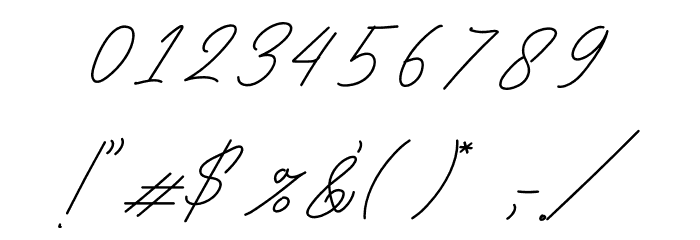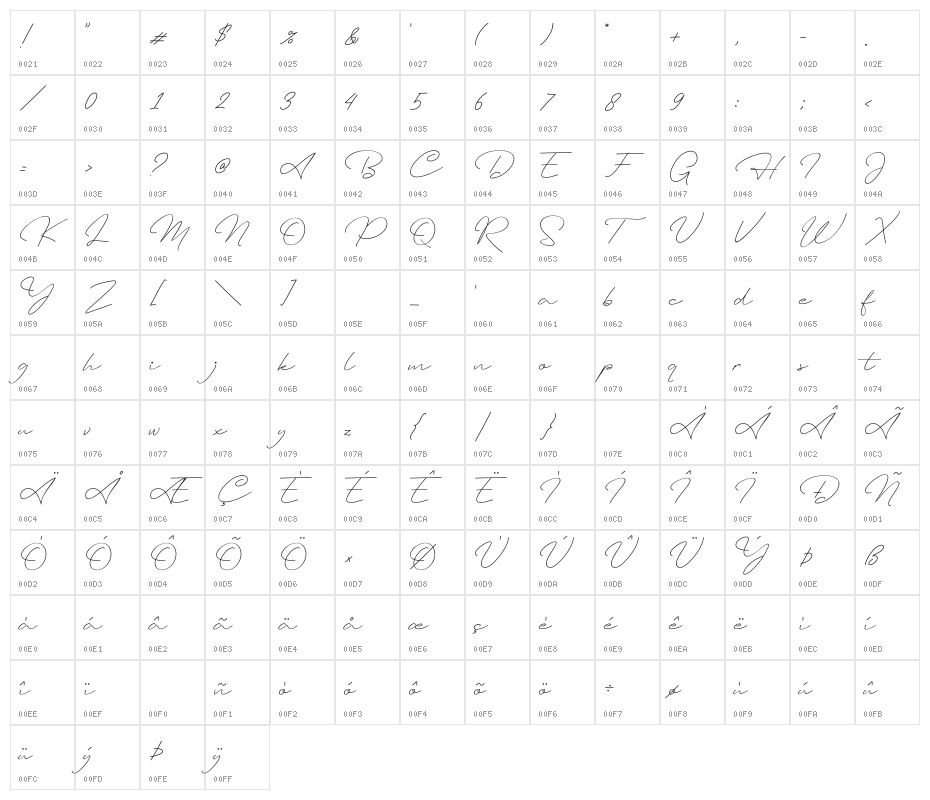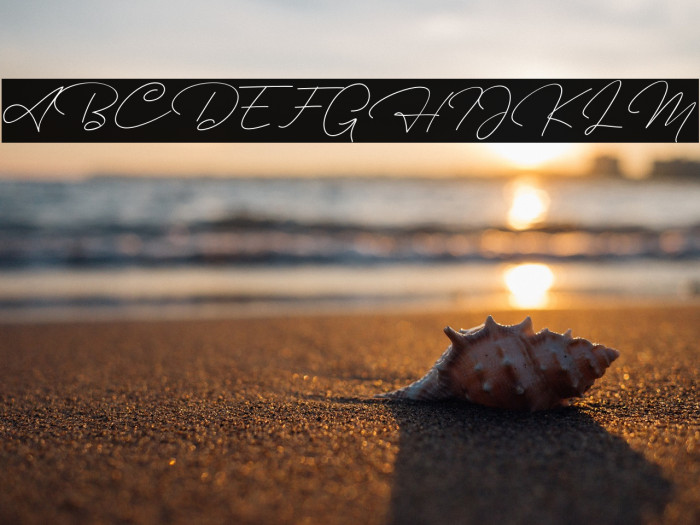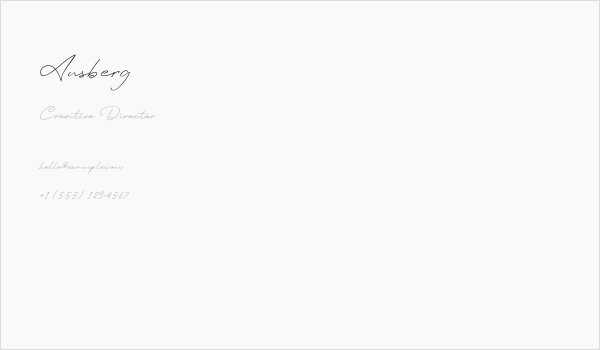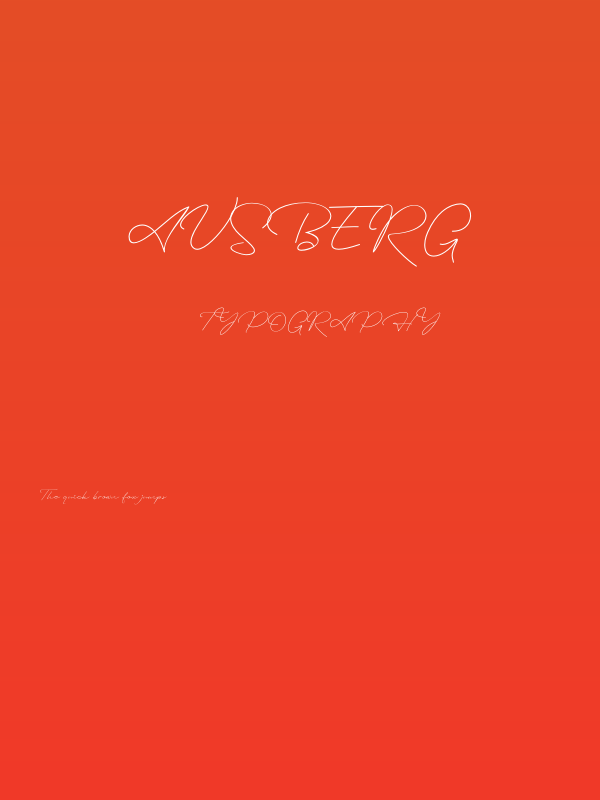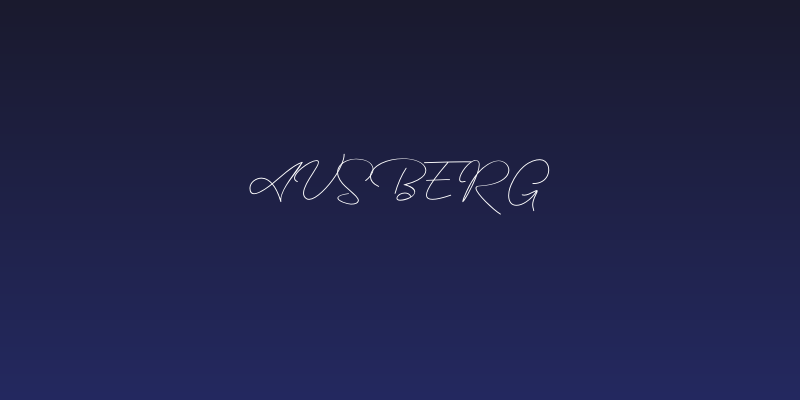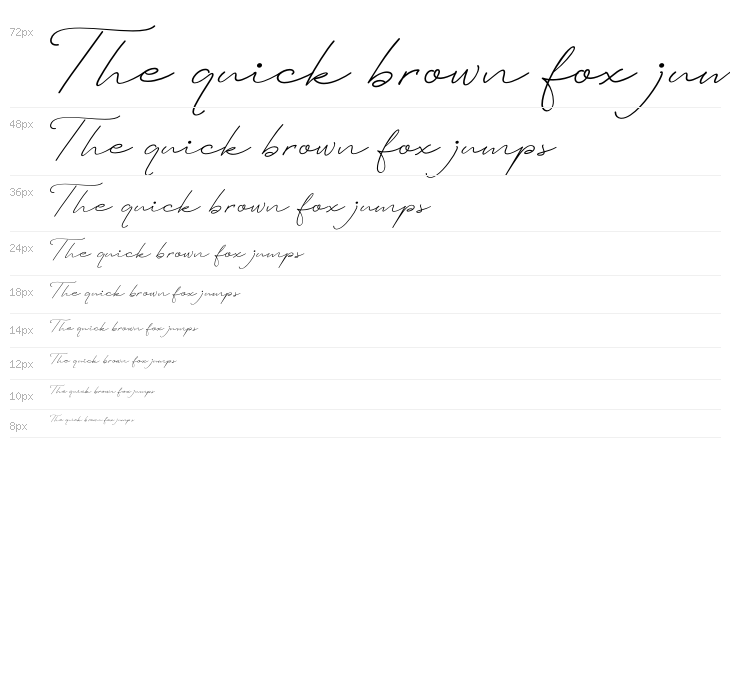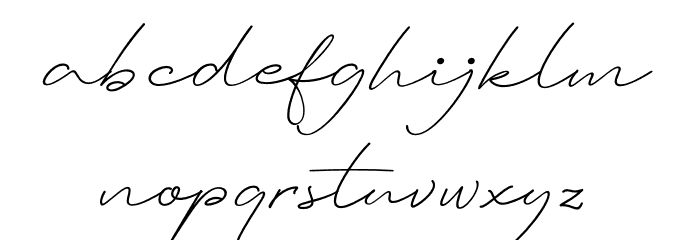
Ausberg Font
Ausberg Description
This font exudes elegance with its flowing, cursive style that mimics natural handwriting. Each character is crafted with smooth, continuous strokes, giving it a graceful and sophisticated appearance. The uppercase letters are slightly more ornate, featuring delicate loops and swirls, while the lowercase letters maintain a consistent fluidity. The numerals are clear and legible, maintaining the same cursive style. Special characters are seamlessly integrated, ensuring a cohesive look across all glyphs. This font is perfect for projects that require a personal touch, such as invitations, greeting cards, or branding materials.
| Use Case | Headlines, Invitations, Personal Branding |
| Proposed Projects | Ideal for wedding invitations, personal branding, greeting cards, and elegant stationery. |